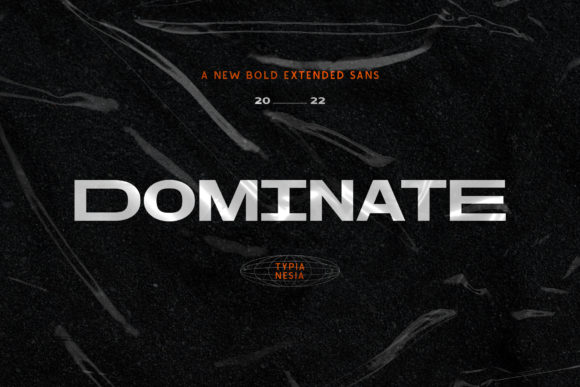
Introducing Dominate Font – The Ultimate Sans Serif for a Bold and Captivating Presence
Embark on a typographic adventure with Dominate Font, a sans serif masterpiece crafted to command attention and make your designs shine. Its bold strokes and expanded letterforms exude a sense of strength and dynamism, leaving an unforgettable impact on your audience.
Unleash Your Creativity with a Multitude of Applications
Dominate Font's versatility knows no bounds. Whether you're a designer, marketer, or content creator, this font is your ultimate weapon to conquer any creative challenge. Craft logos that demand attention, design editorials that captivate, and create sports designs that ignite passion. Unleash your imagination and conquer the world of gaming, music, technology, and advertising with Dominate Font as your trusty companion.
Ignite Your Designs with a Symphony of Features
Dominate Font is more than just a font; it's an arsenal of typographic tools designed to elevate your designs to new heights. Its PUA encoding grants you effortless access to a treasure trove of glyphs and ligatures, empowering you to add intricate details and personality to your creations. Experiment with various stylistic alternates to achieve a truly unique and captivating visual aesthetic.
Make a Statement with Every Word
Dominate Font is your secret weapon for crafting headlines that grab attention and leave a lasting impression. Its bold and commanding presence ensures that your messages stand out from the crowd, whether you're designing posters, book covers, or event invitations. Let Dominate Font amplify your words and make a statement that resonates with your audience.
Dominate Font is more than just a font; it's a gateway to a world of creative possibilities. Its versatility, captivating features, and bold personality make it the perfect choice for designers, marketers, and content creators who dare to make a statement. Download Dominate Font today and unleash the power of typography to dominate the world of design.